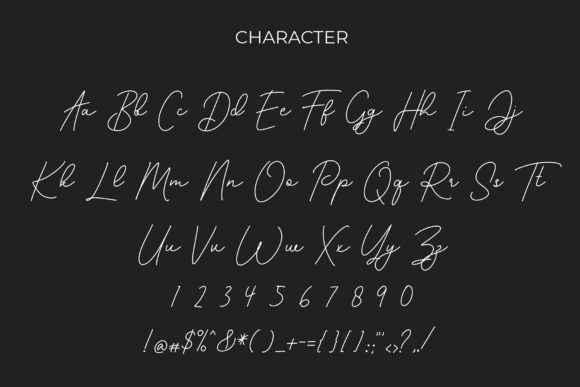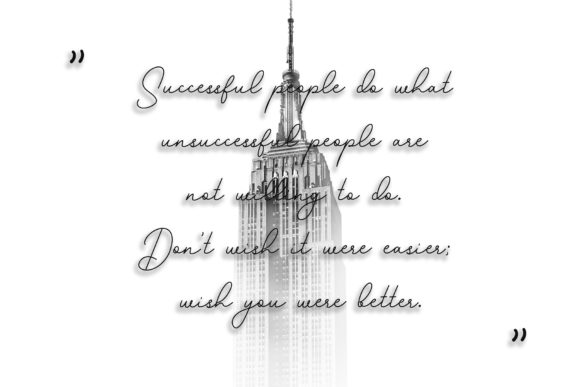
Introduction to Roshayati Font
Do you remember that moment when you first saw a beautifully crafted invitation or a stunning piece of artwork, and you couldn’t help but feel inspired? For many of us, it’s those small creative moments that spark our imagination and fuel our passion for design. If you’re a designer or crafter looking to add a touch of elegance to your next project, you’re in luck!
We’re excited to introduce you to the Roshayati Font, a high-quality, handwritten font that exudes style and sophistication. With its beautiful flowing script and transparent background, this design resource is perfect for any creative project that requires a personalized appearance. Whether you’re working on a wedding invitation, a custom logo, or a crafty DIY project, the Roshayati Font is sure to impress.
Key Features of Roshayati Font
- Roshayati Font is a high-quality, free download font suitable for various creative projects, including graphic design, digital art, and more.
- This font features a transparent background, allowing for seamless integration with any design resource or image.
- The font size is optimized for high-resolution displays, with a minimum resolution of 300 DPI, making it perfect for printing and digital use.
- Roshayati Font boasts a unique, modern design with elegant lines and curves, making it an excellent choice for designers seeking a sophisticated look.
- This font is highly versatile and can be used for a wide range of creative projects, from branding and advertising to editorial and publishing.
Honest Review: Roshayati Font
I recently had the chance to work with the Roshayati Font, and I must say it’s been a pleasant experience. The font is high quality, with a unique and elegant design that adds a touch of sophistication to any creative project.
One of the standout features of the Roshayati Font is its transparent background, which makes it easy to customize and use in a variety of design contexts. This transparency also allows the font to blend seamlessly with other design elements, making it a valuable resource for any designer.
- High-quality design and typography
- Perfect for creative projects and design resources
- The font may not be suitable for body text, as it’s more decorative in nature
Overall, I’m impressed with the Roshayati Font and its potential to elevate any design project. While it may have some limitations, its unique design and transparent background make it a valuable resource for designers looking to add a touch of elegance to their work.
Tips for Getting the Most Out of Roshayati Font
For optimal results, use Roshayati Font in conjunction with a clear and simple design. Avoid using too many fonts or colors, as this can detract from the overall aesthetic. Experiment with different font sizes and styles to find the perfect combination for your design.
Roshayati Font is ideal for a variety of creative projects, including logos, business cards, and wedding invitations. Its high quality and transparent background make it a popular choice among designers looking for a design resource that stands out from the crowd.